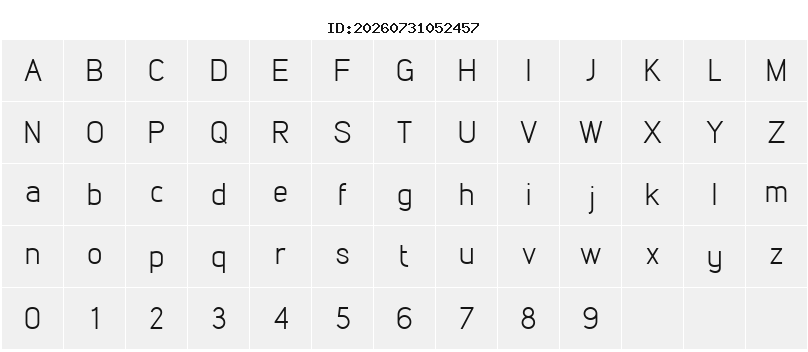
• Font Name: Lintel
• Designer: Jonathan Hill
Lintel.ttf is a modern, elegant sans-serif font designed for ultimate readability and visual harmony. Perfect for branding, headlines, web design, and print materials.